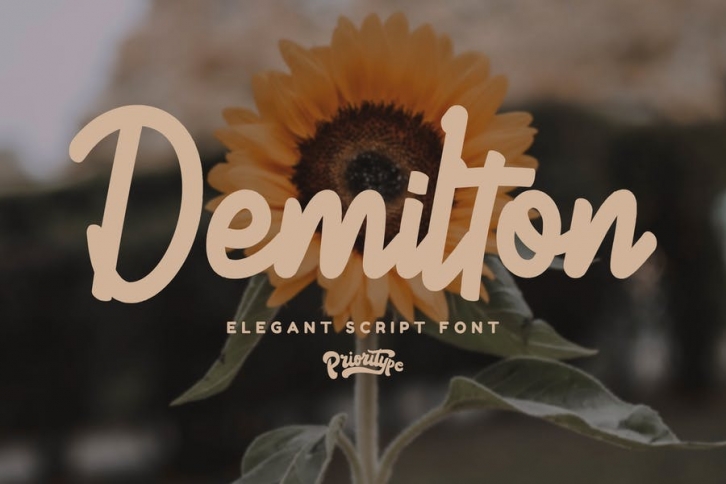
Demilton - Elegant Script Font
This minimalist and elegant looking font is ready to accompany your project. Simple but powerful and beautiful. Can be applied to packaging logos, wedding invitations, branding, creative posts, posters, quotes, landing pages, and much more to explore.